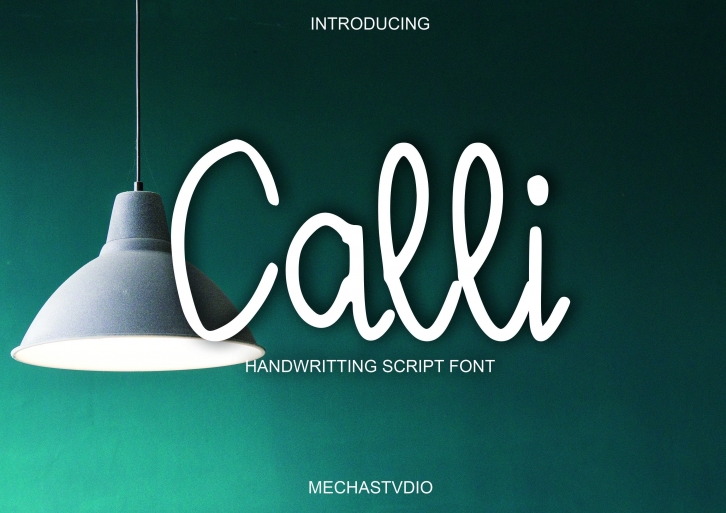
Calli is a beautiful and light handwritten font with a unique feel and a stunning impact. It will add a natural spark to any design project that you wish to create.